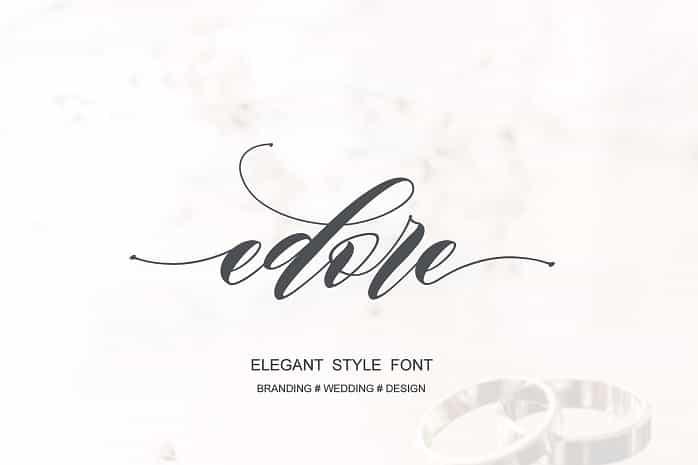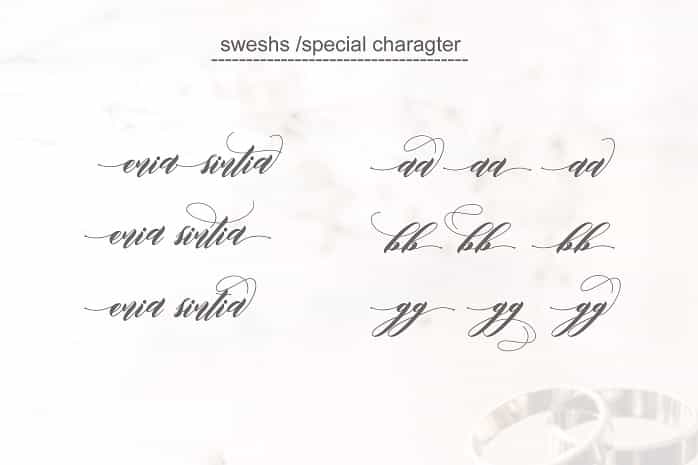
Introducing Edore Font. Edore is an elegant and modern looking calligraphy script, which is perfect for the projects that require a natural and organic style. This font is perfect for logo, logotype, branding,wedding, fashion, label, book cover,t-shirt ,instagram post and other things that need a classy look.